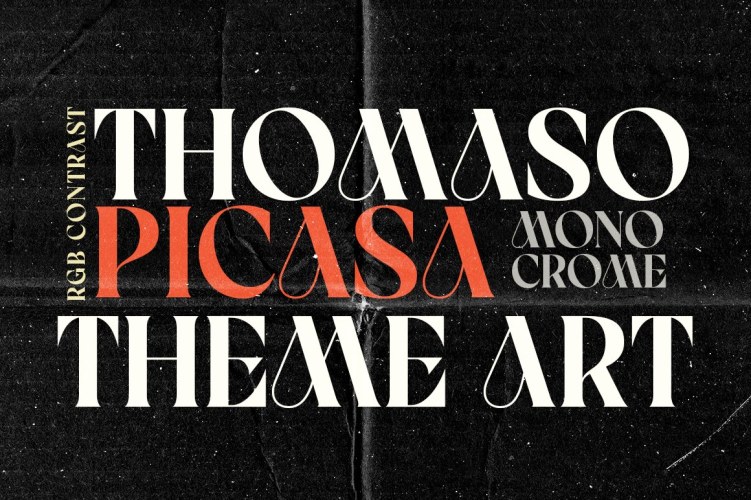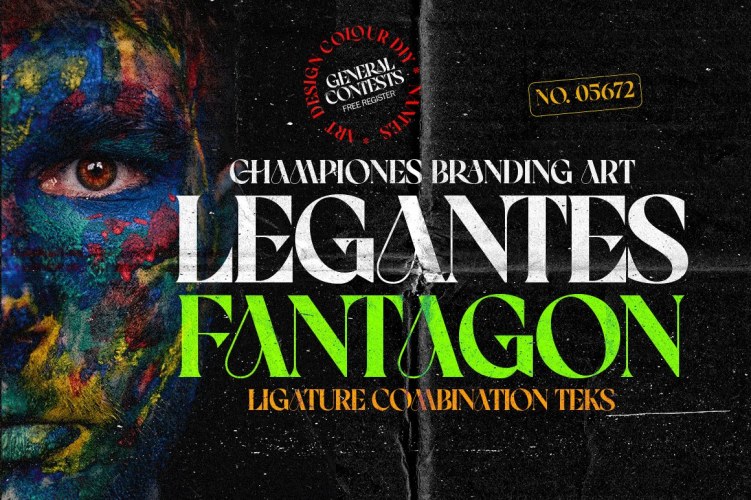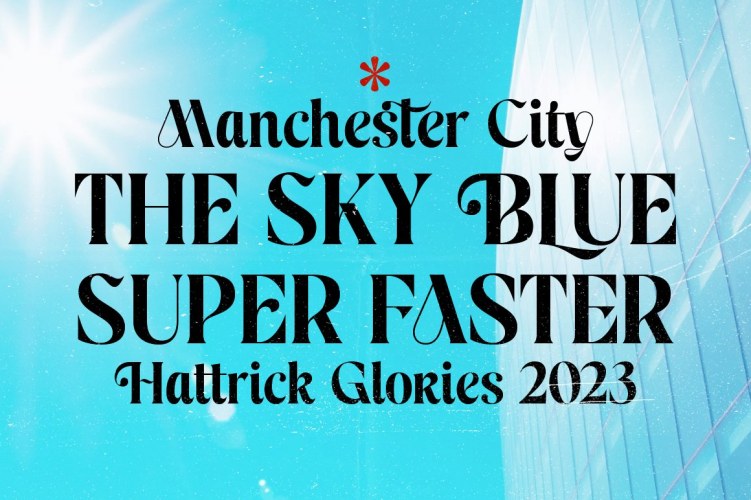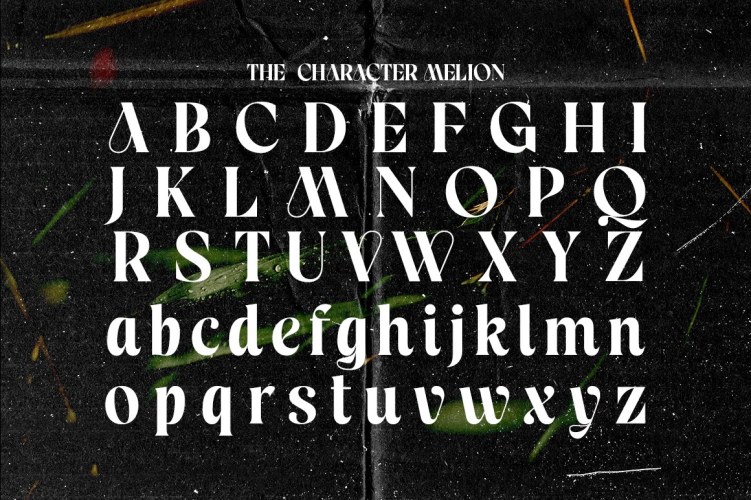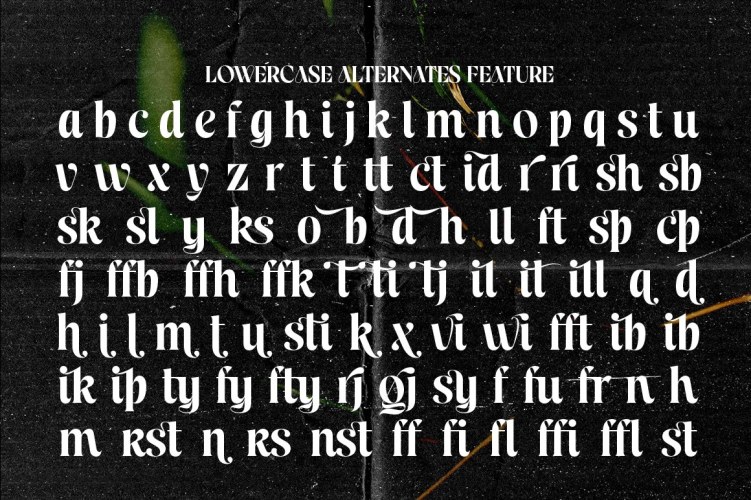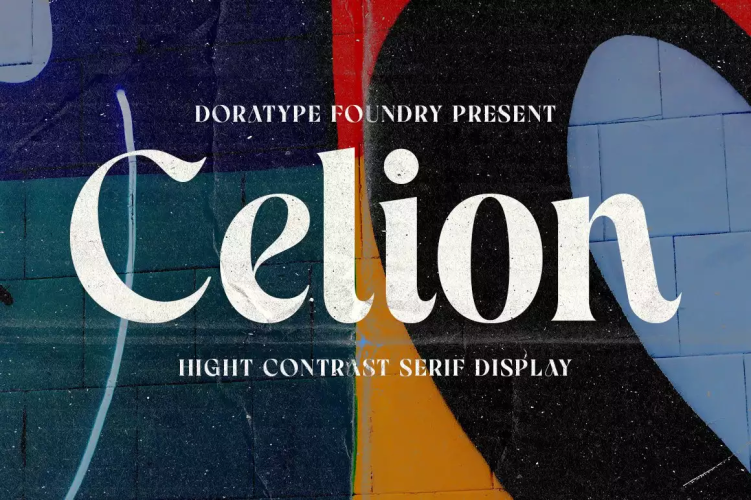
Celion Font
Celion is a serif display type with a nonsensical feel. modern high contrast with bright positive character. The clean shapes and slightly conical edges of the letters create a welcoming atmosphere in any design. Including ligatures, custom alternative glyphs, the Celion font is perfect for headlines, magazines, logotypes, food packages, advertisements and many others.
This type of family has become the work of true love, making it as easy and fun as possible. I really hope you enjoy it!
Where Celion Font works best
Celion Font is built for size: event posters, hero headlines and billboard-style layouts.
High contrast display type like Celion Font reads instantly in thumbnails and motion graphics.
What is Celion Font good for?